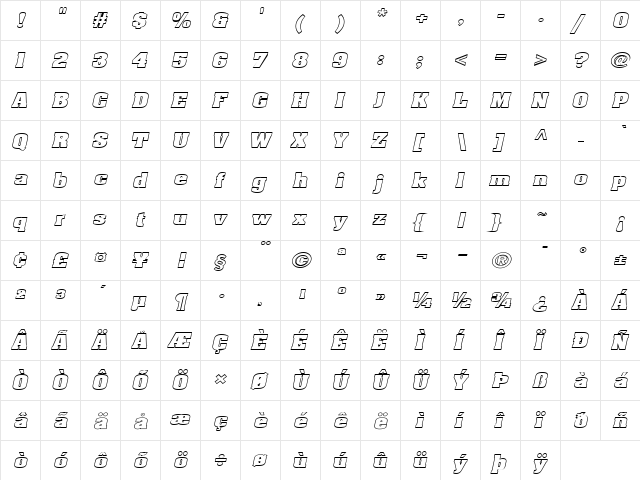
Heidelberg-Hollow-Extended Italic
Design Context for Heidelberg-Hollow-Extended Typeface
Heidelberg-Hollow-Extended takes a measured approach to typography — its balanced proportions and neutral character make it a reliable workhorse for both digital and print work. The slanted form adds forward momentum and visual energy.